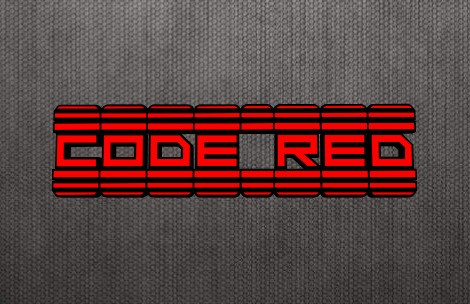
Code Red Font, It has a distinctive futuristic design. Use it to create time-traveling movie posters for futuristic or extraterrestrial productions. Fantastic for creating unique cards and artwork for science fiction fans. This font was created to be used for universal events like game competitions, wall advertisements, and poster designs. Your design can look better with a simple combination. Purchase it right away to enjoy using it ahead of the competition.
Code Red Font